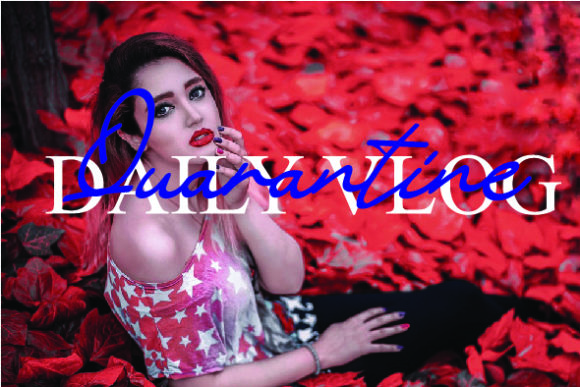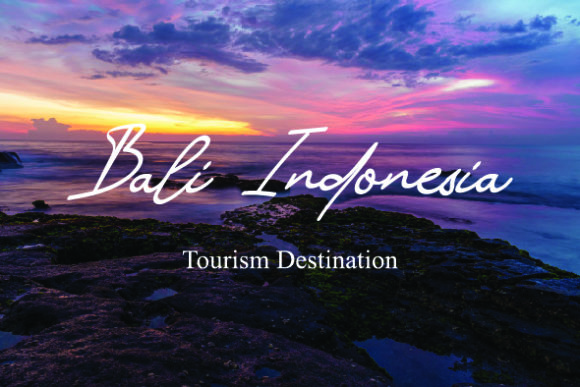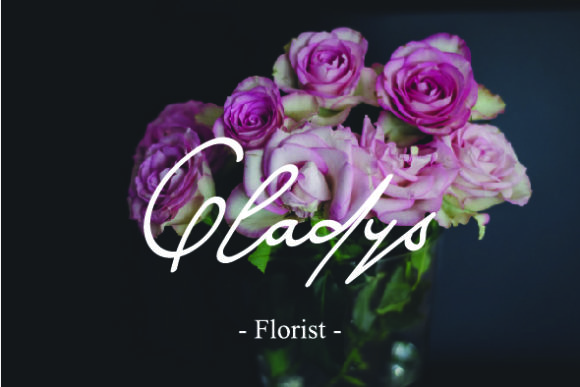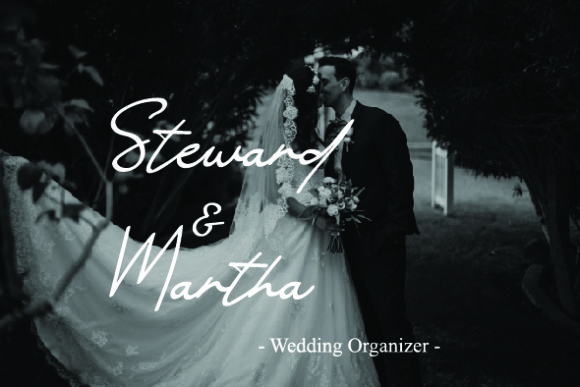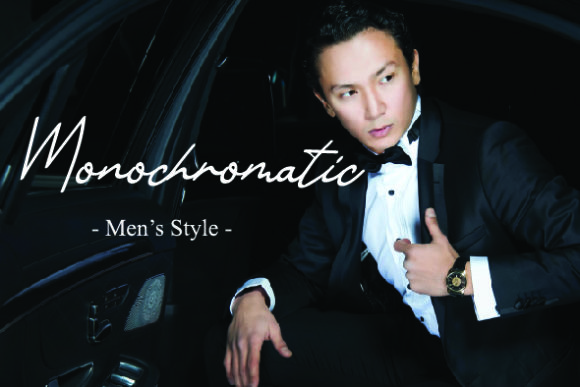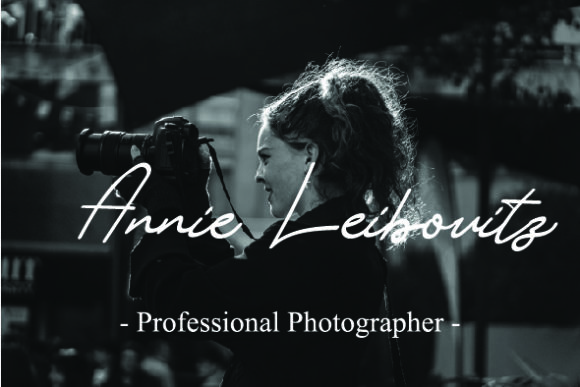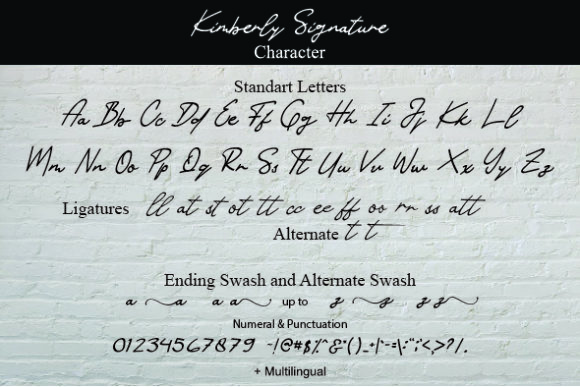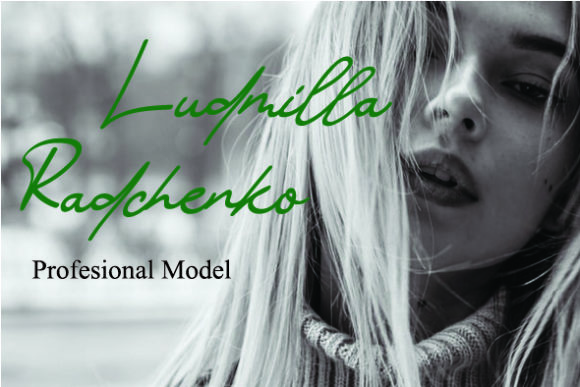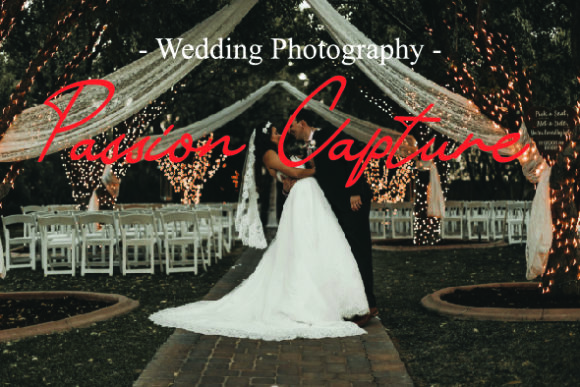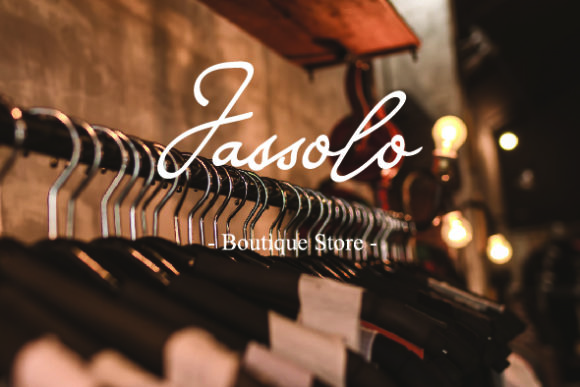
Kimberly Signature Font
About Kimberly Signature Font
Kimberly Signature is a relaxed and timeless handwritten font. Fall in love with its incredibly versatile style and use it to create gorgeous wedding invitations, beautiful stationary art, eye-catching social media posts, and much more!